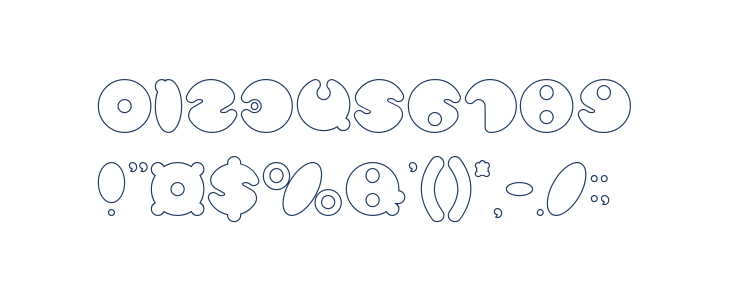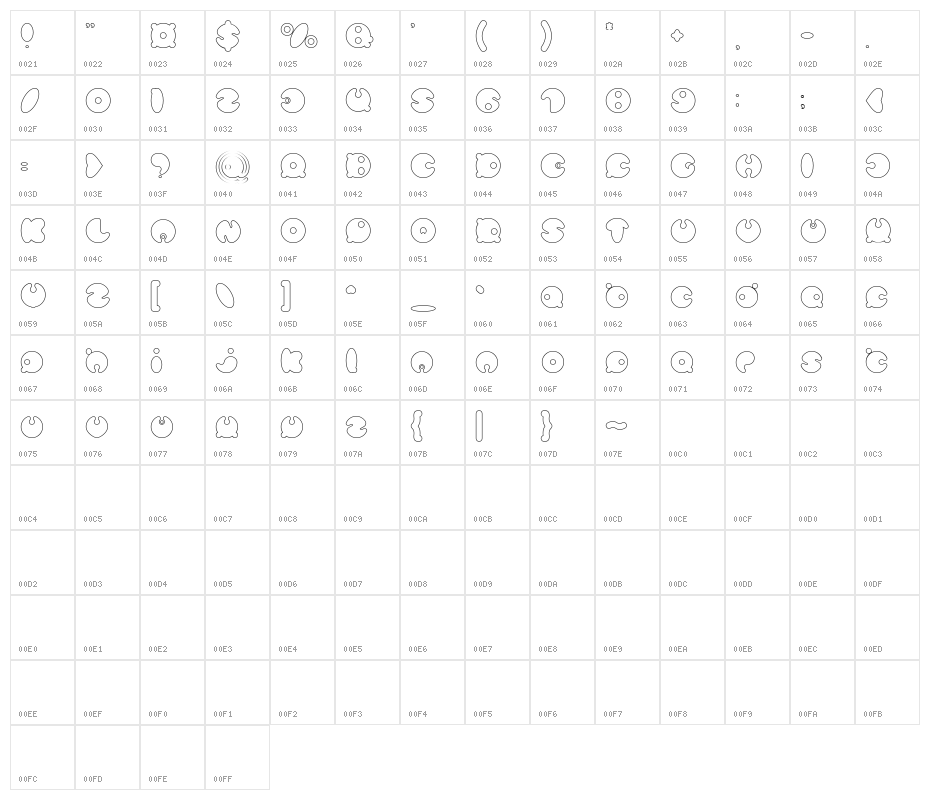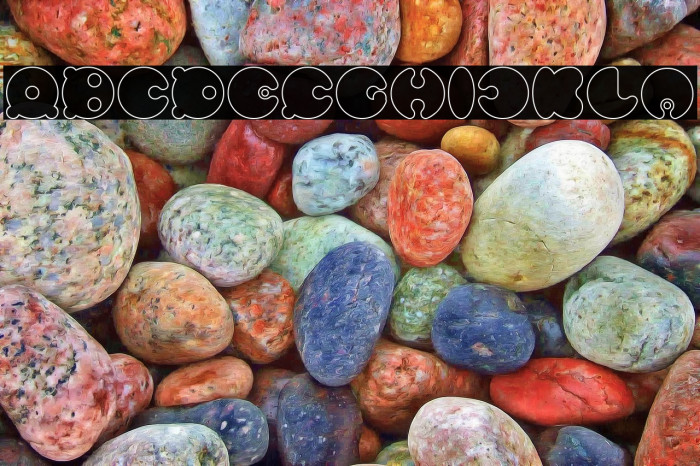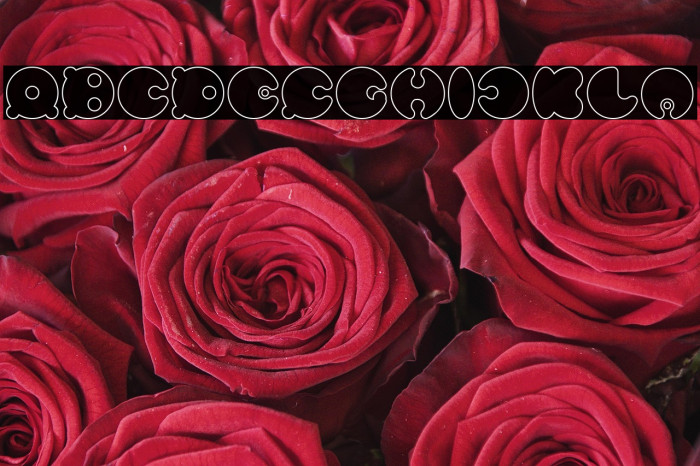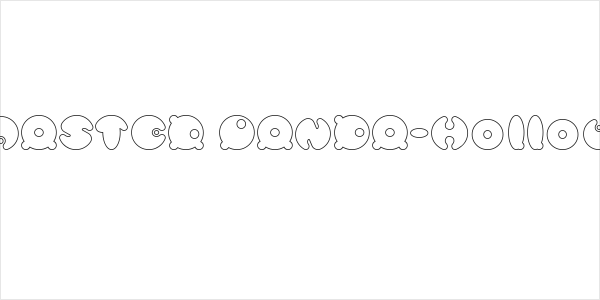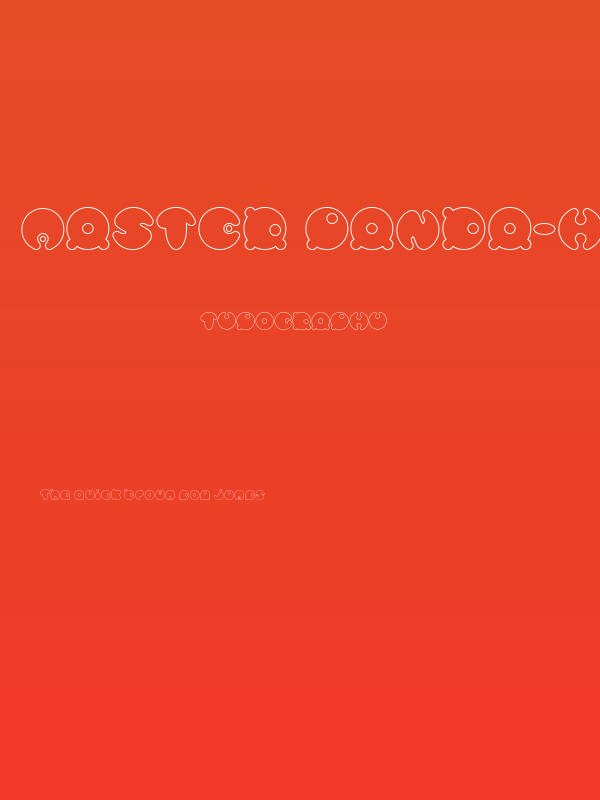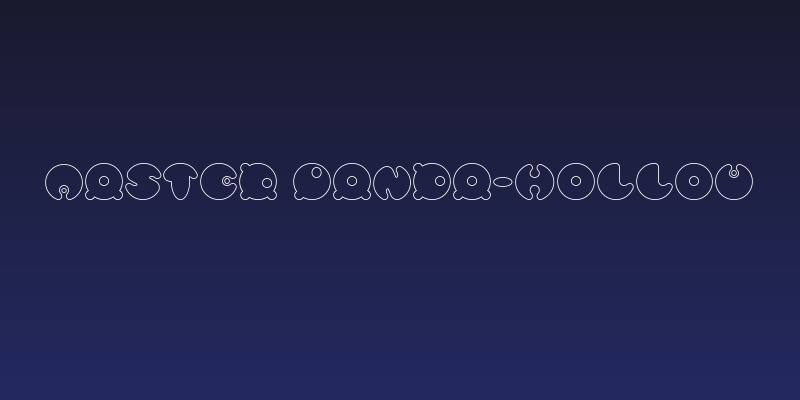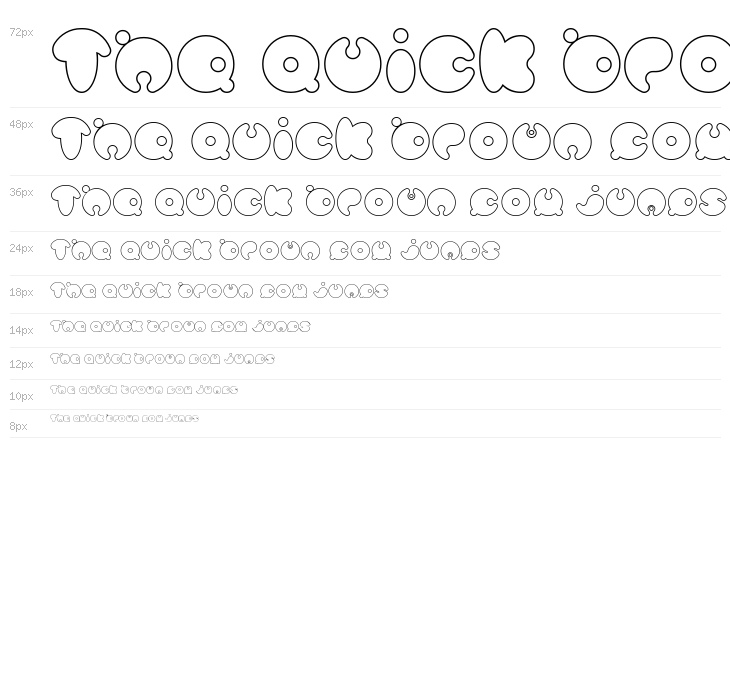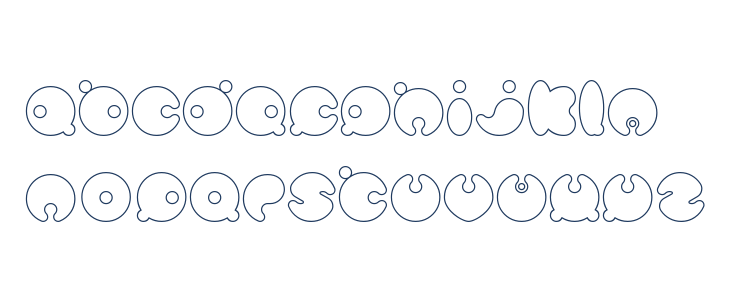
MASTER PANDA-Hollow Font
MASTER PANDA-Hollow Description
This playful and whimsical font features hollow, rounded characters with a unique, bubbly appearance. Each letter and number is designed with a consistent circular form, giving it a cohesive and friendly look. The font includes both uppercase and lowercase letters, as well as numbers and a variety of special characters. Its hollow design makes it ideal for projects that require a fun and lighthearted touch. The characters have a uniform thickness, contributing to a balanced and harmonious aesthetic. This font is perfect for children's projects, playful branding, or any design that needs a touch of whimsy.